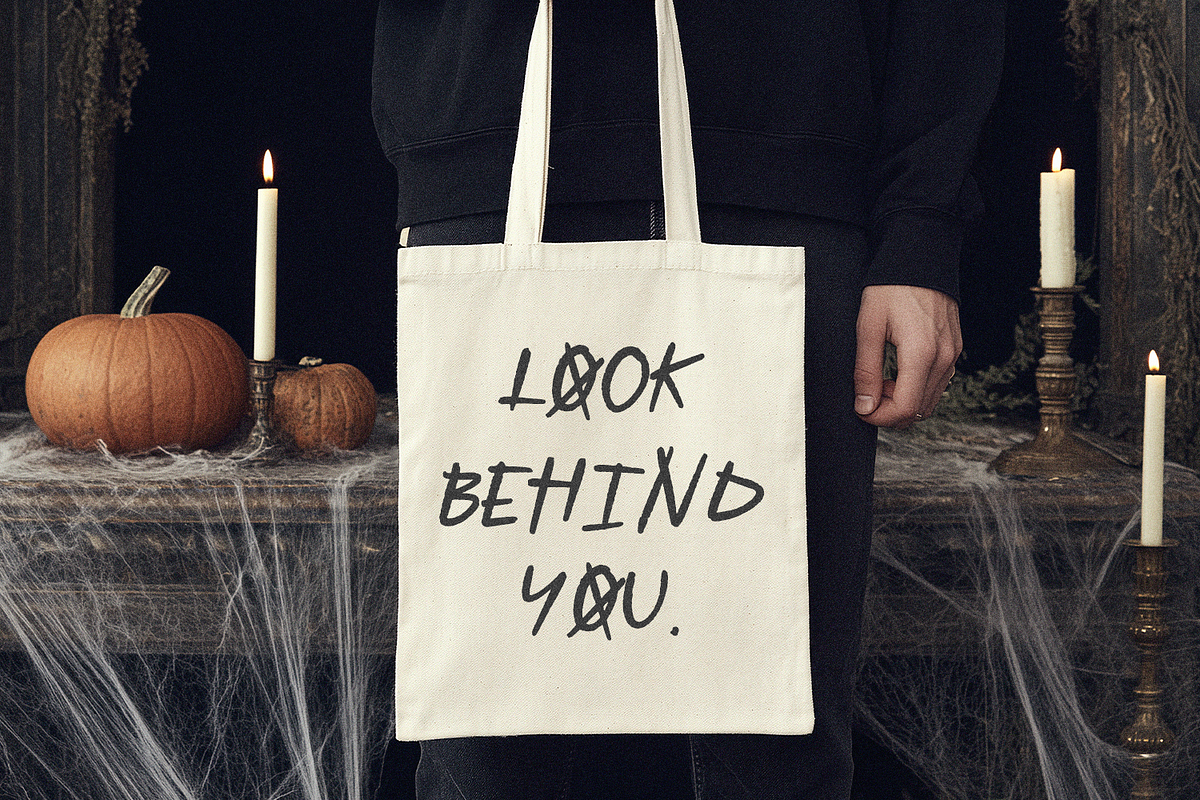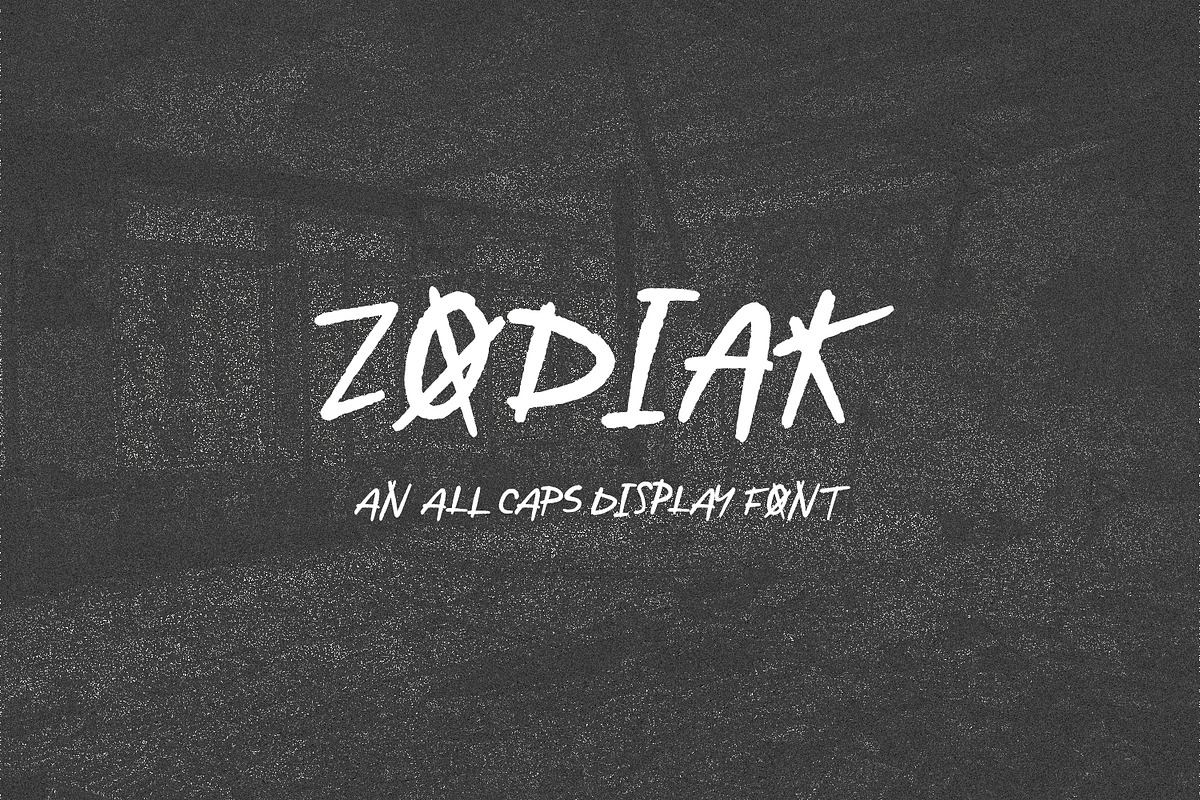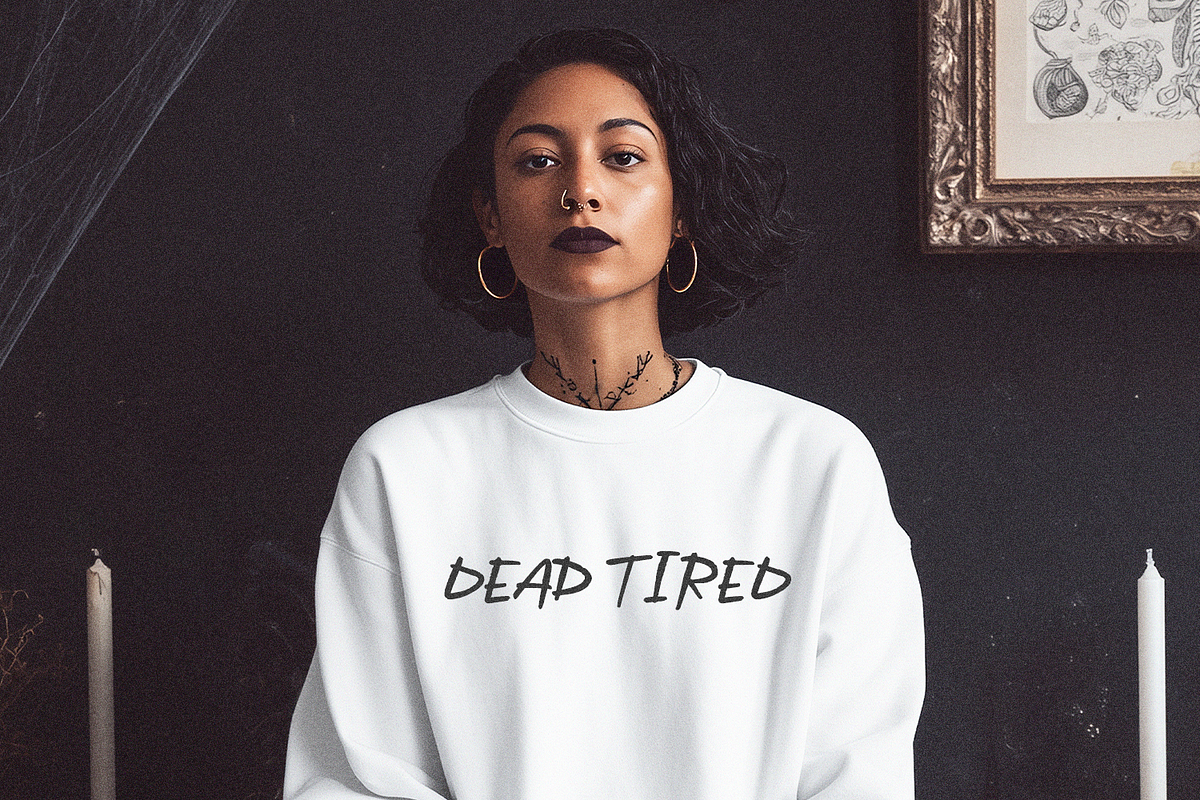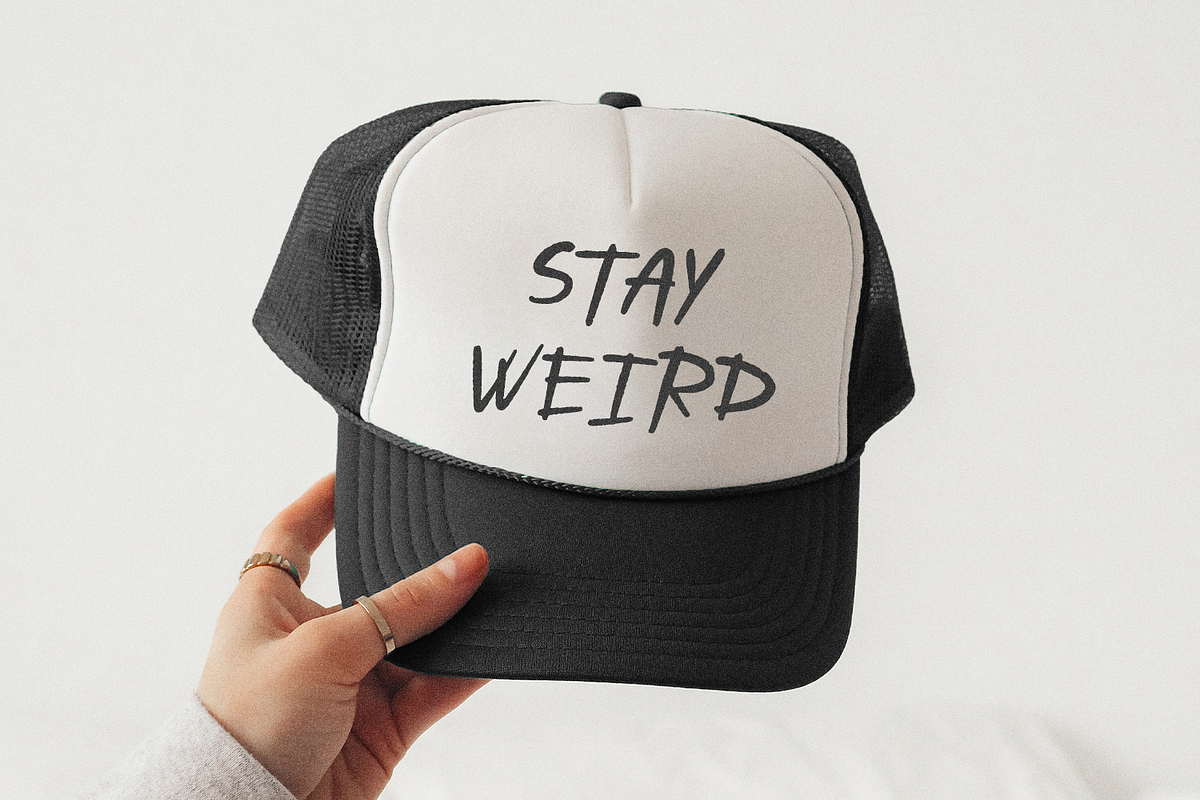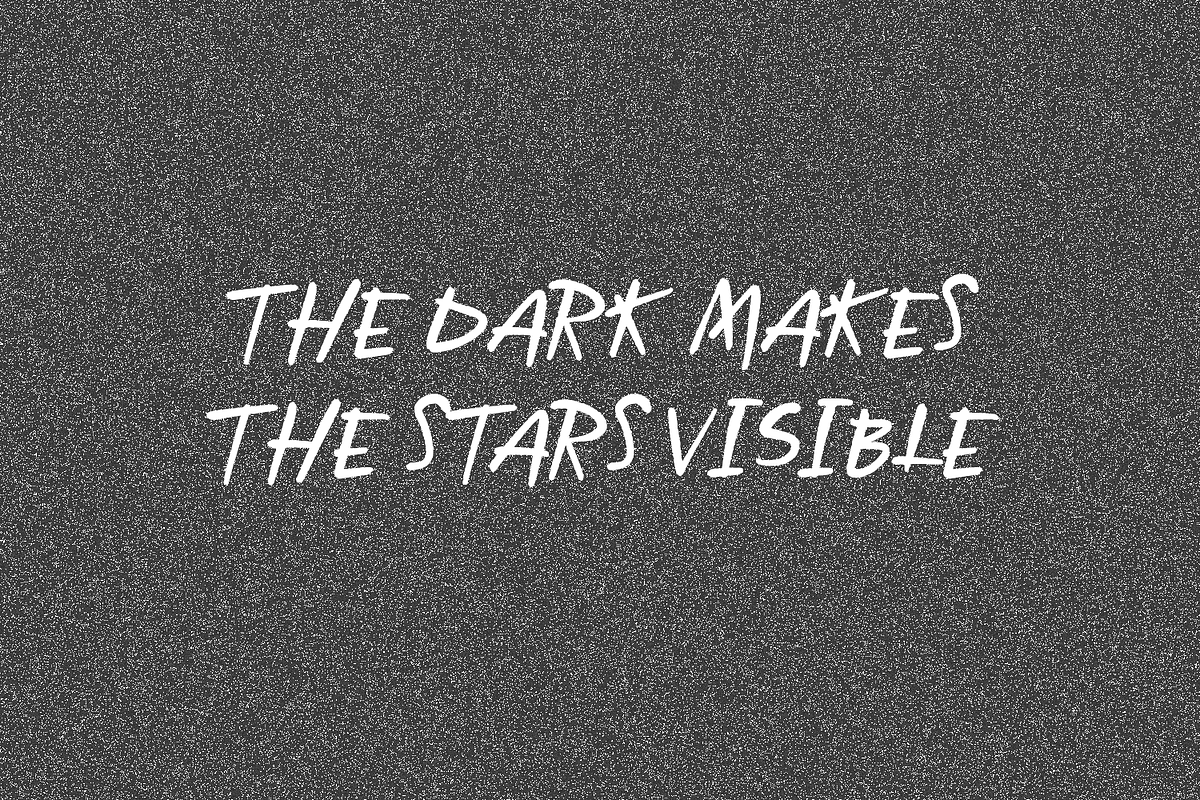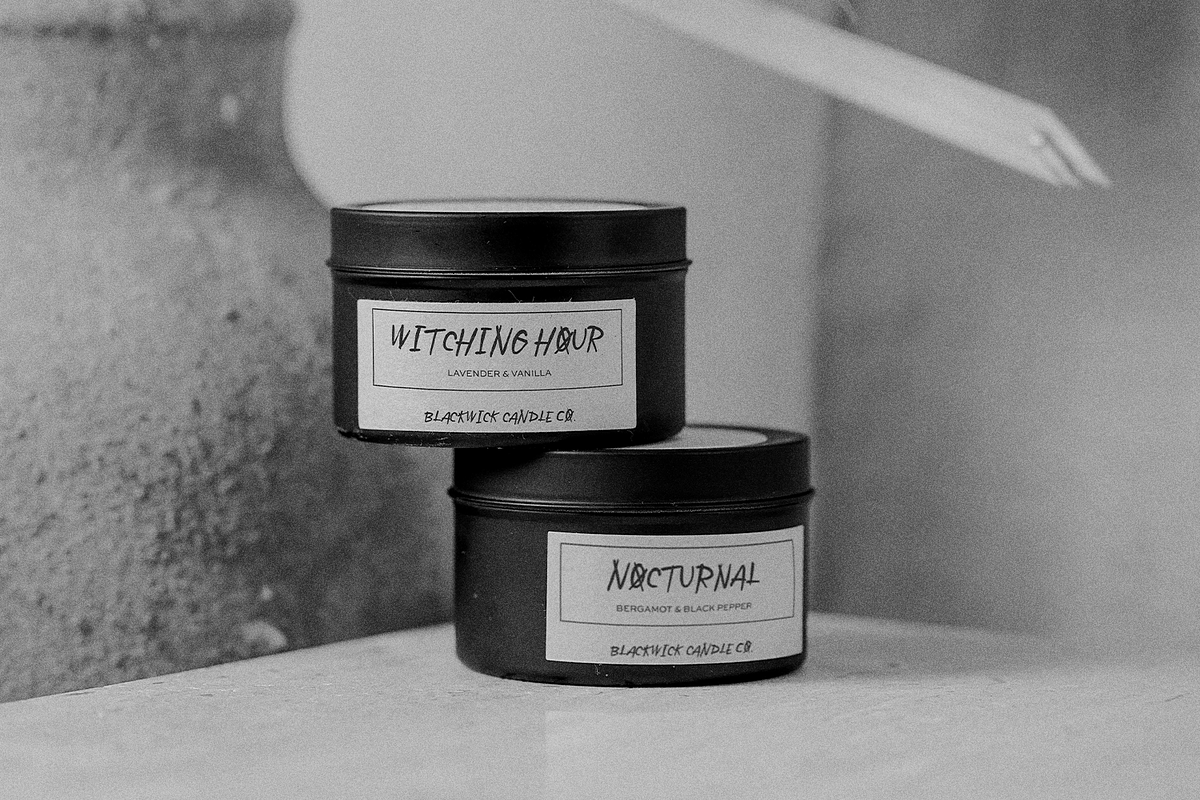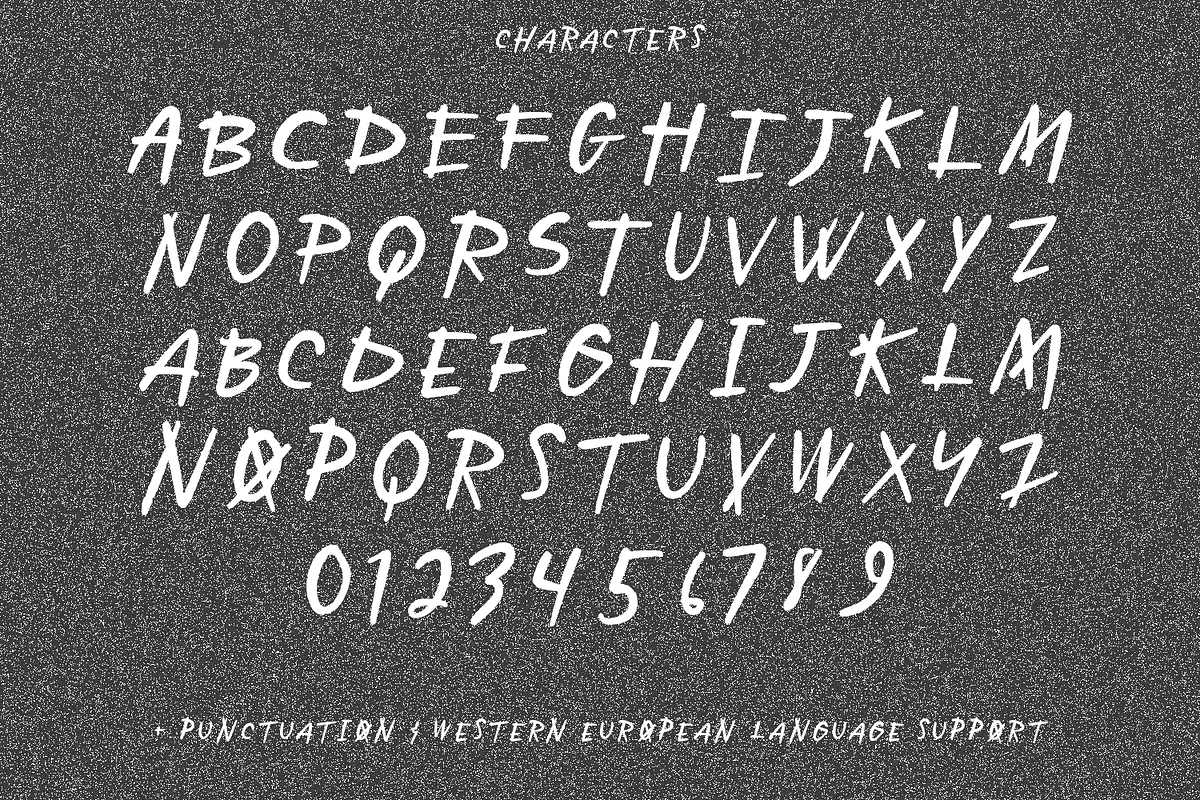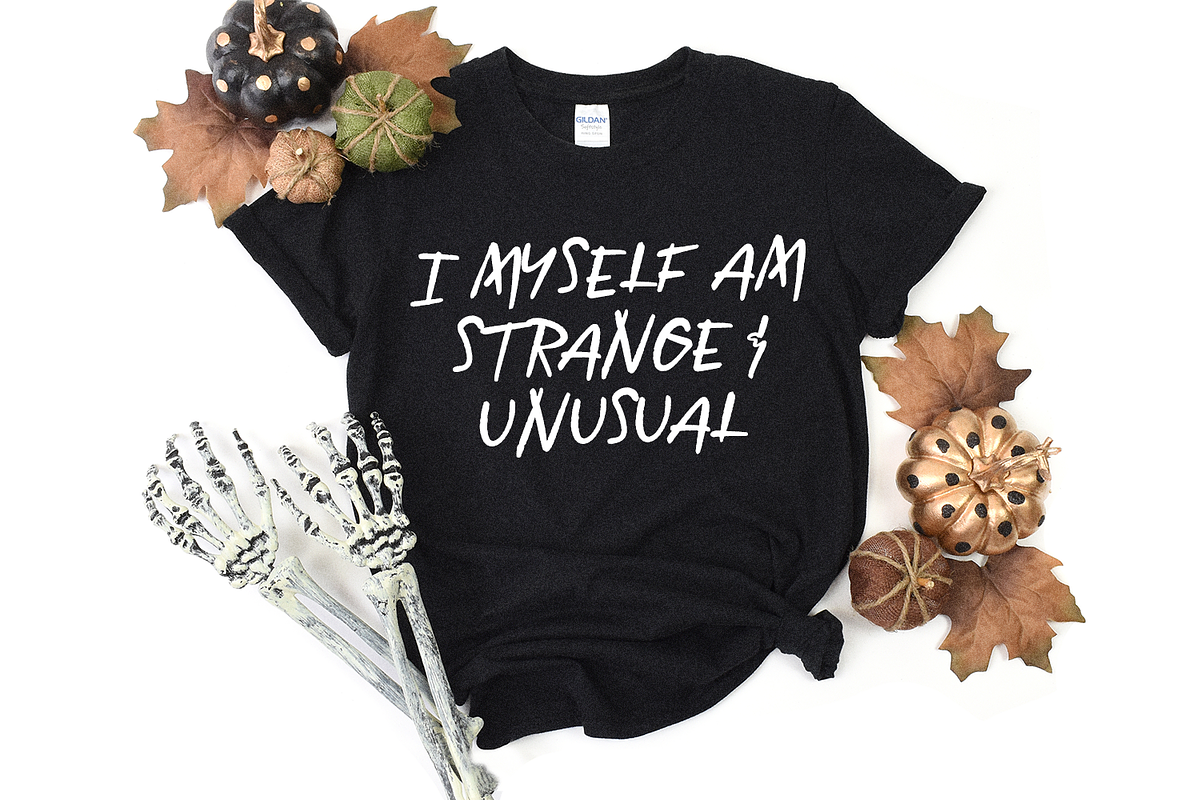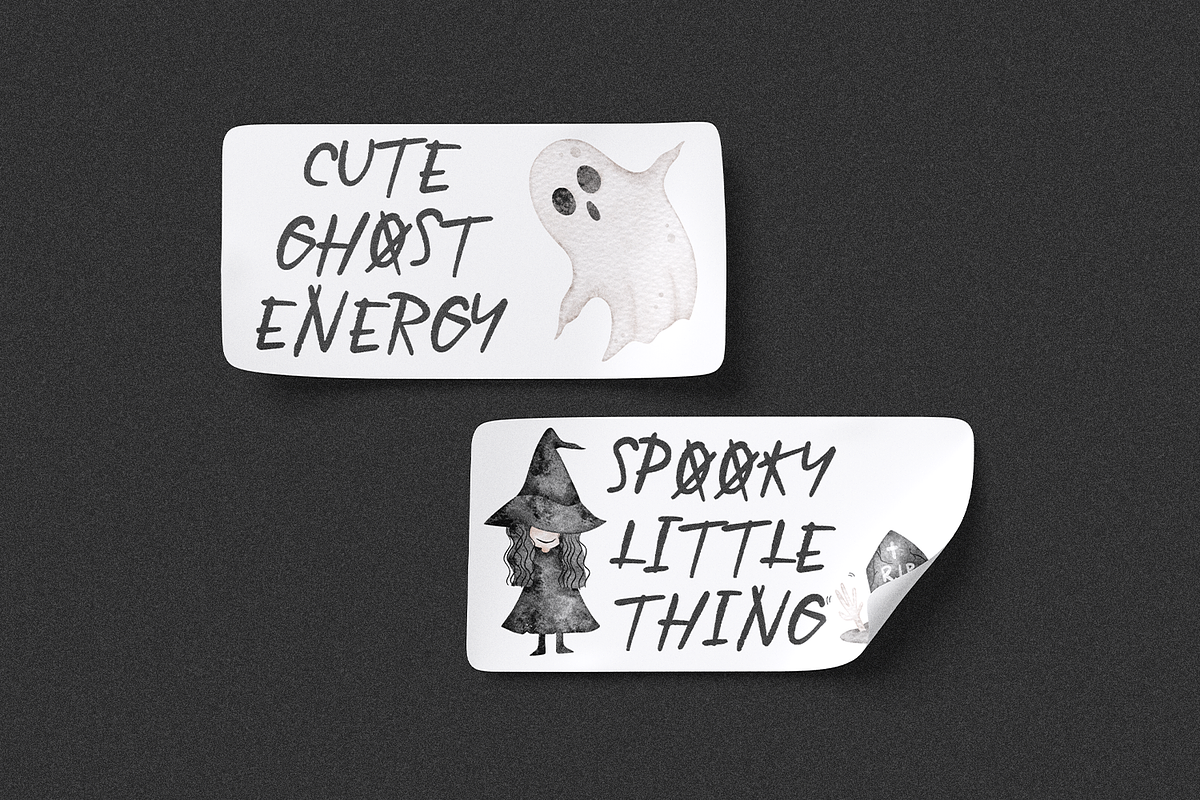
Zodiak Display Font
Zodiak is a creepy display font for Halloween! This font has a scrawled, rushed, textured appearance inspired by the unsettling look of anonymous notes & coded messages. It’s an all-caps font, but all lowercase character spots have a different capital option than the actual uppercase characters, so you can pick and choose the case for a more varied, natural handwritten look. Zodiak would be a good fit for horror themed graphics, Halloween themed items, or creepy signs. Personally, I would lose my mind if a true crime podcast used this font in their branding!
Other projects Zodiak could be used for include logos, labels, posters, and any other design that needs something weird & creepy!
- full upper + lowercase characters
- numbers + punctuation